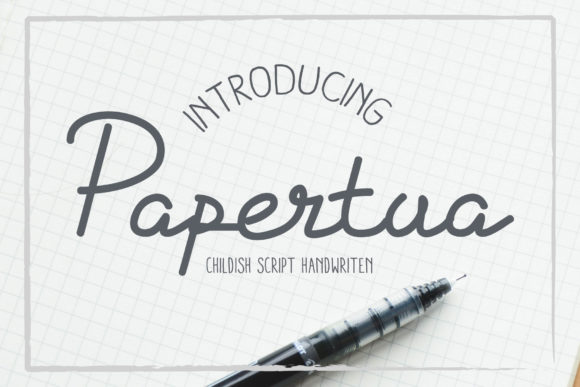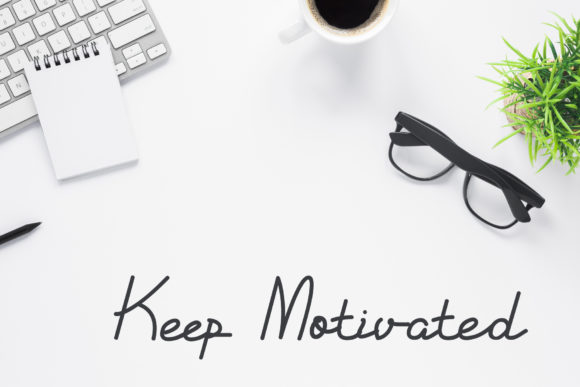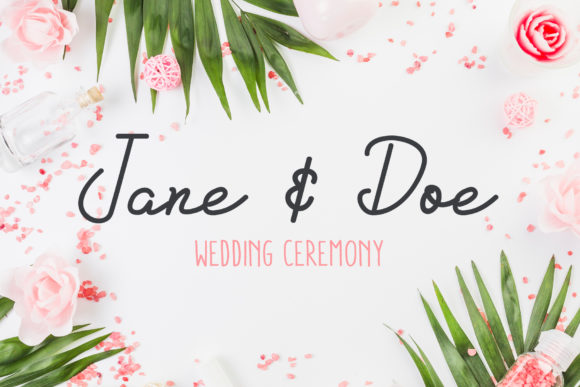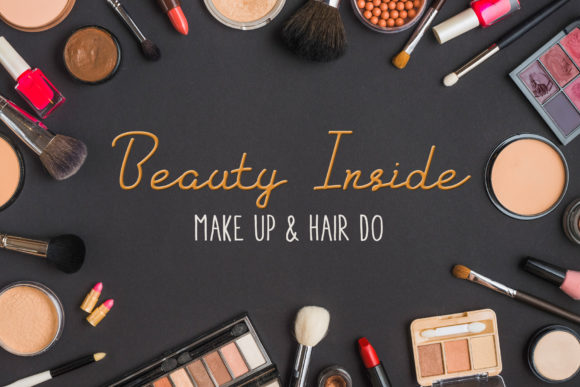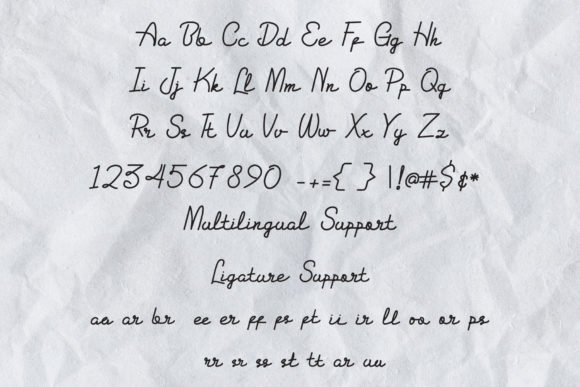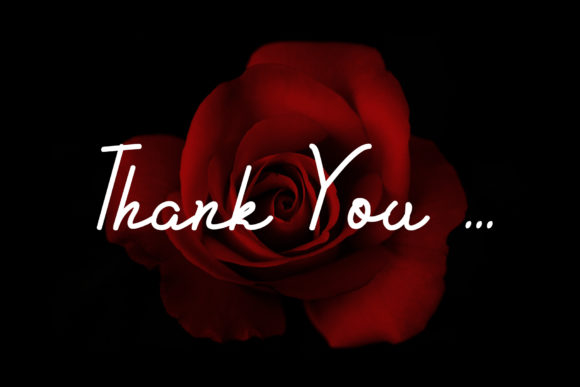
Papertua Font
About Papertua Font
The Papertua is a lovely signature font. It has an amazing handwritten style with a perfect readability.
The Papertua is great for adding an elegant and personal touch to your luxurious designs.